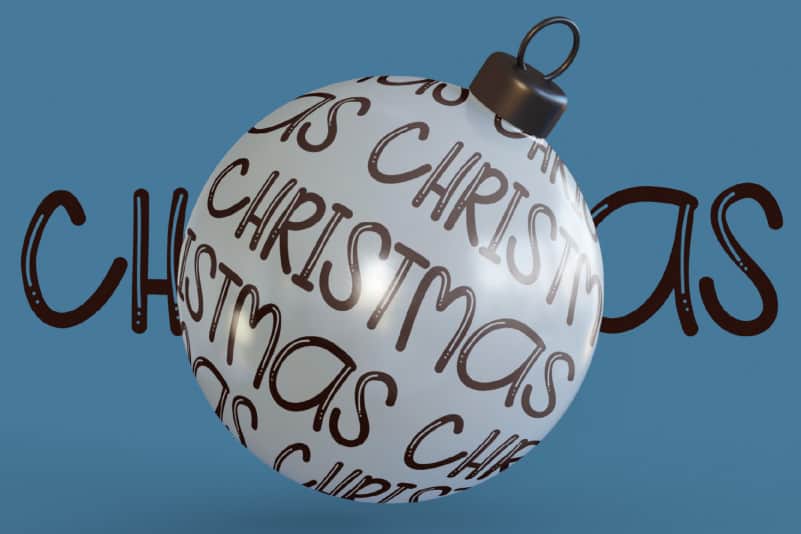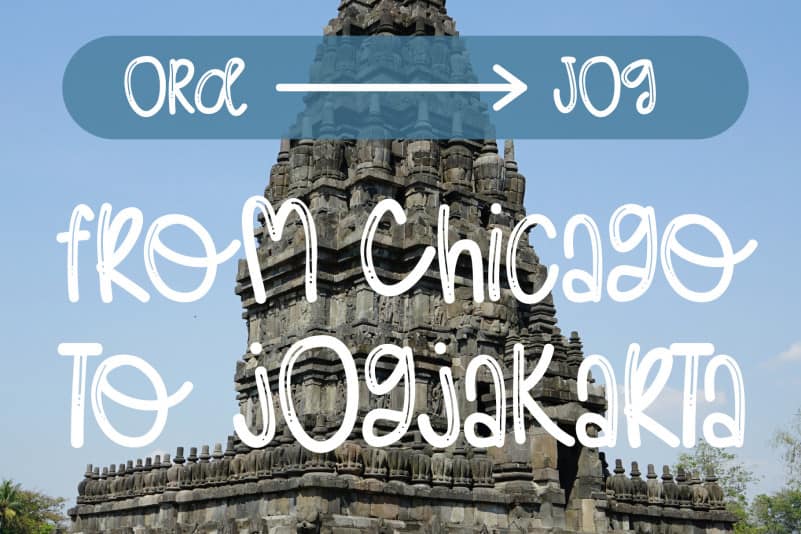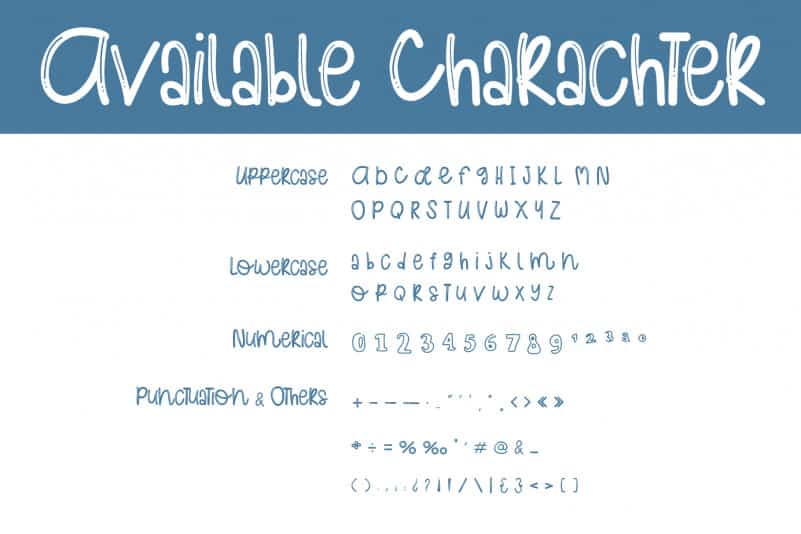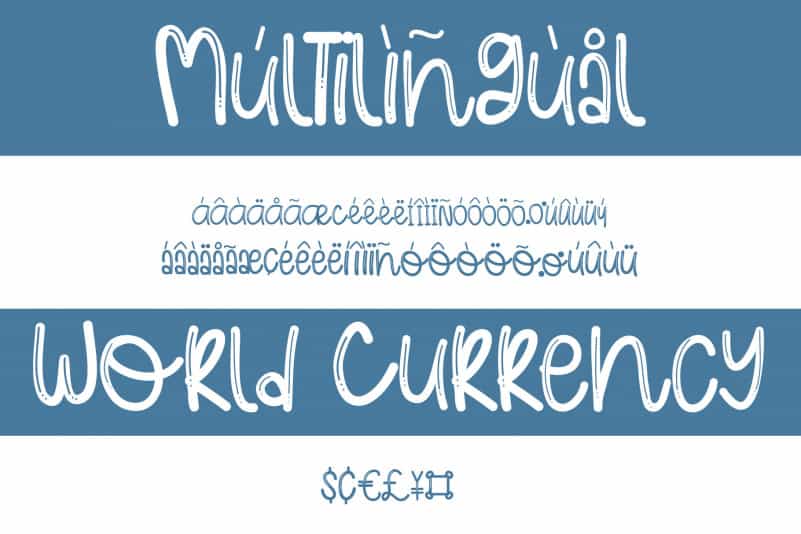
Masterina Brush Font
Masterina Brush Font is a cute and unique hand drawn. Its light brush style it incredibly fitting to a variety of design, especially the one that need personal hand drawn letters.